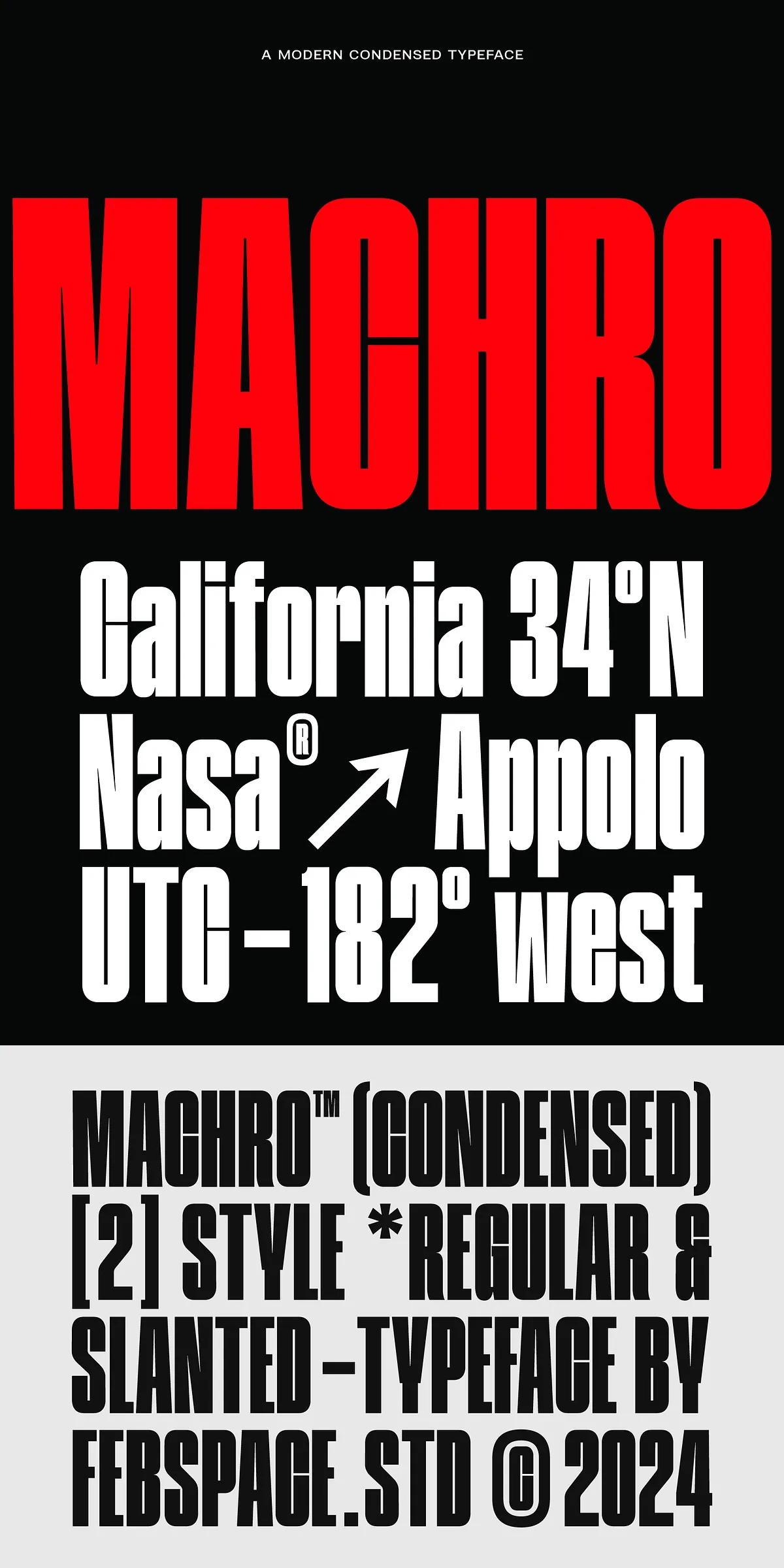
Power your visuals with FBS Machro Condensed, a high-impact, modern condensed typeface engineered for maximum presence and precision. Built for dynamic environments, this font doesn’t just convey content—it commands attention. With its bold, tightly packed characters, FBS Machro delivers strength, clarity, and architectural elegance, making it the ultimate tool for designers who demand impact without compromise. Whether you’re shaping a brand identity, designing a poster, or crafting a digital campaign, this typeface turns your message into a movement.
Designed for Impact: Why FBS Machro Stands Out
Unlike standard typefaces that settle for neutrality, FBS Machro is built to dominate. Its condensed structure packs maximum visual weight into minimal space—perfect when space is limited but impact must be infinite. Every stroke is carefully refined for sharpness and balance, ensuring impeccable legibility even at small sizes or in fast-moving designs.
- Bold Characters with Architectural Precision: The thick, well-defined strokes project strength and confidence, ideal for headlines, titles, and key messaging where dominance is essential.
- Two Dynamic Styles for Maximum Flexibility: Choose from Regular—perfect for clean, authoritative body text and bold headlines—or Slanted, which injects speed, energy, and motion into your layout, instantly grabbing the viewer’s eye.
- Optimized for Print & Digital Use: Whether on a physical flyer, a digital banner, or a high-resolution display, FBS Machro maintains crisp clarity, sharp edges, and consistent color depth across media.
- Contemporary Elegance Meets Raw Power: It strikes a perfect balance—modern and sleek, yet powerful and unapologetic. The design avoids clutter while amplifying presence through intelligent negative space and clean geometry.
Precision in Every Pixel
FBS Machro Condensed is not just visually striking; it’s technically advanced. The font’s narrow proportions are carefully calculated to avoid visual congestion, ensuring readability remains top-tier even in dense layouts. Each character has been tested across multiple industries—from fashion to tech, from music to architecture—proving its versatility across styles and contexts.
The font supports extended languages, special characters, and punctuation, making it ideal for global campaigns and multilingual content. Its OpenType features include ligatures, stylistic alternates, and position-specific glyphs, empowering advanced typographic control for professional workflows.
Where FBS Machro Makes the Difference
Use FBS Machro to transform standard designs into standout experiences. It’s more than a font—it’s a design amplifier.
- Branding & Identity: Create a distinct visual language with bold logotypes, taglines, and business cards that leave a lasting impression.
- Posters & Billboards: Maximize impact in limited space. Your message cuts through noise with confidence and clarity.
- Web & App Headers: Use the Regular or Slanted style for impactful navigation, hero sections, and call-to-action buttons.
- Music & Entertainment: Perfect for album covers, concert fliers, and festival promotions where energy and edge matter.
- Editorial Design: Use in sidebars, pull quotes, or section dividers to add rhythm and urgency to long-form content.
Unlock Your Next Big Design Moment
Stop blending in. Start leading the eye. With FBS Machro Condensed, your typography becomes a strategic asset. It’s not just about letters—it’s about control, influence, and visual authority.
Let every line speak louder. Let every word command attention. With FBS Machro, your message doesn’t just arrive—it resonates.